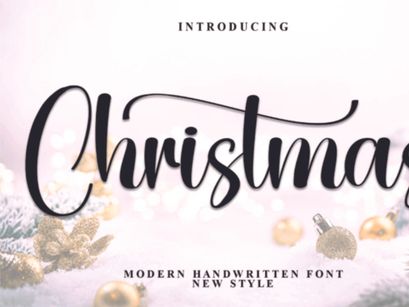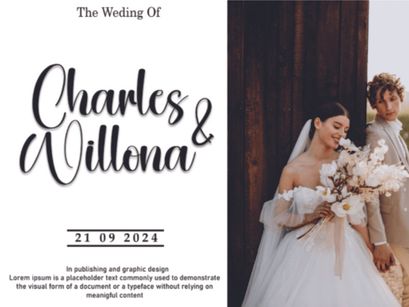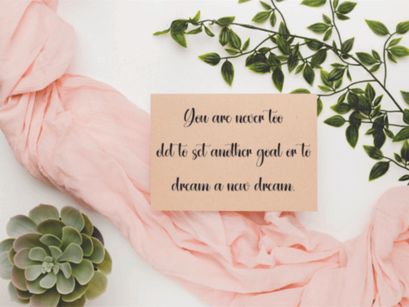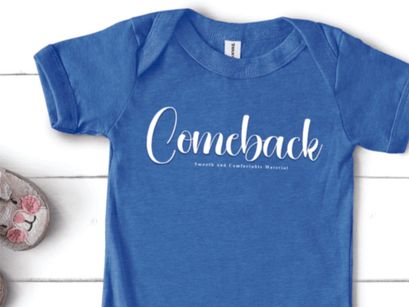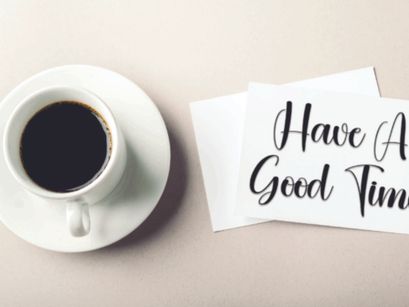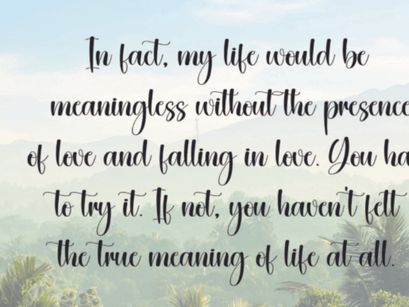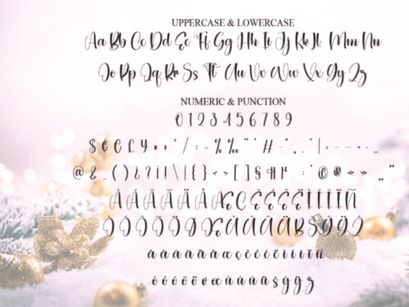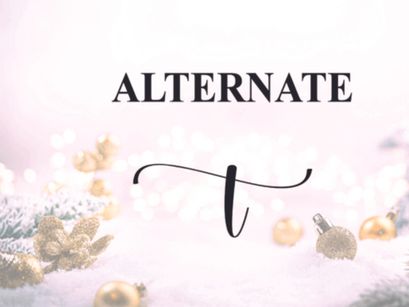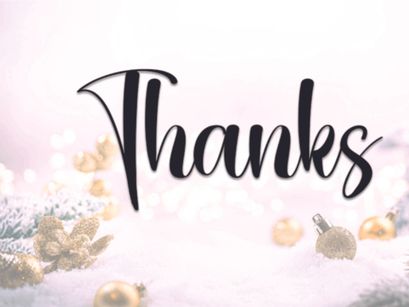
This Christmas font looks like it was written by hand, giving it a warm and personal touch. It features playful letters with a cozy feel, perfect for holiday cards, decorations, or anything festive. The swirls and curves make it cheerful and inviting, bringing the spirit of Christmas to your projects.